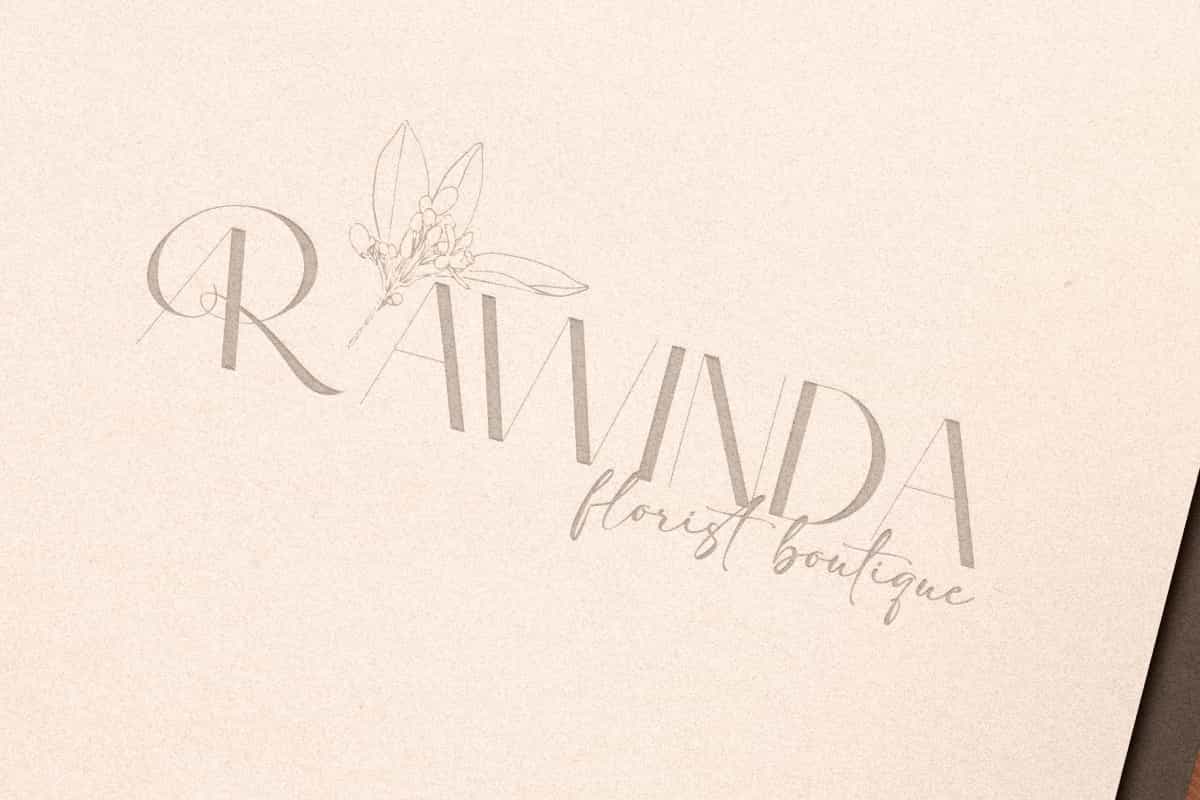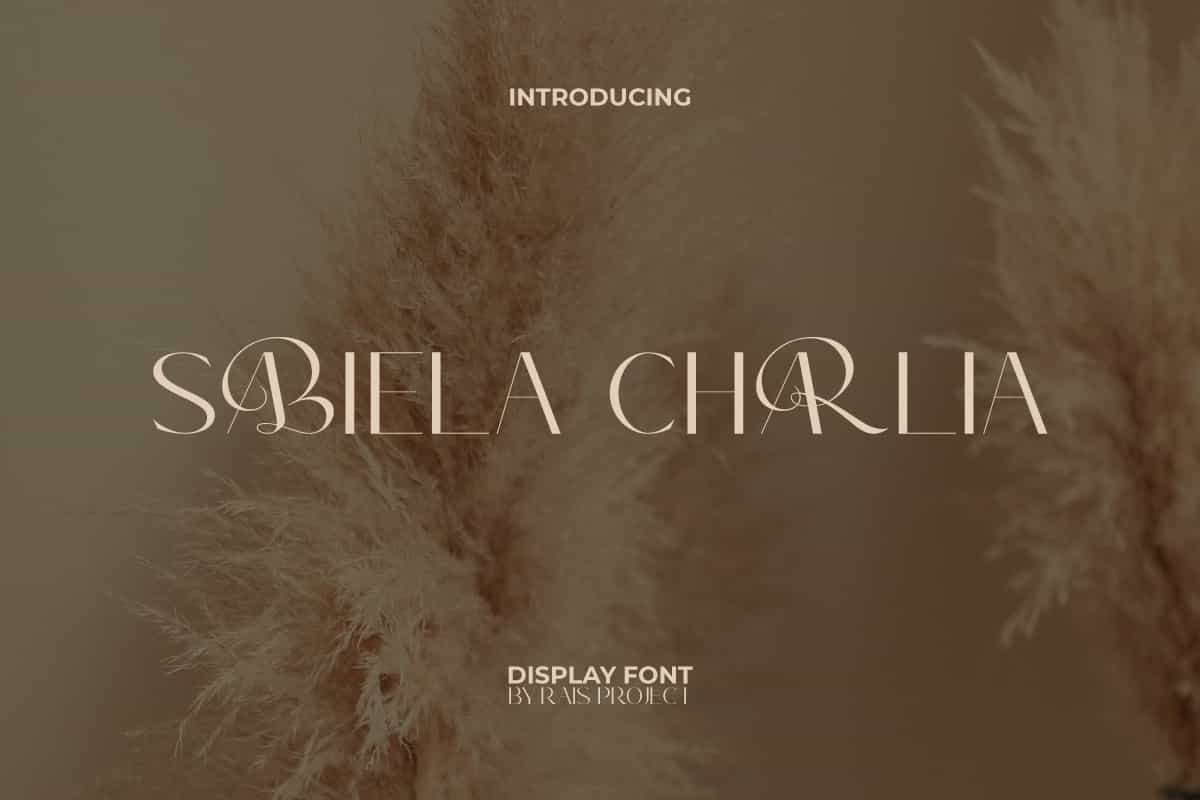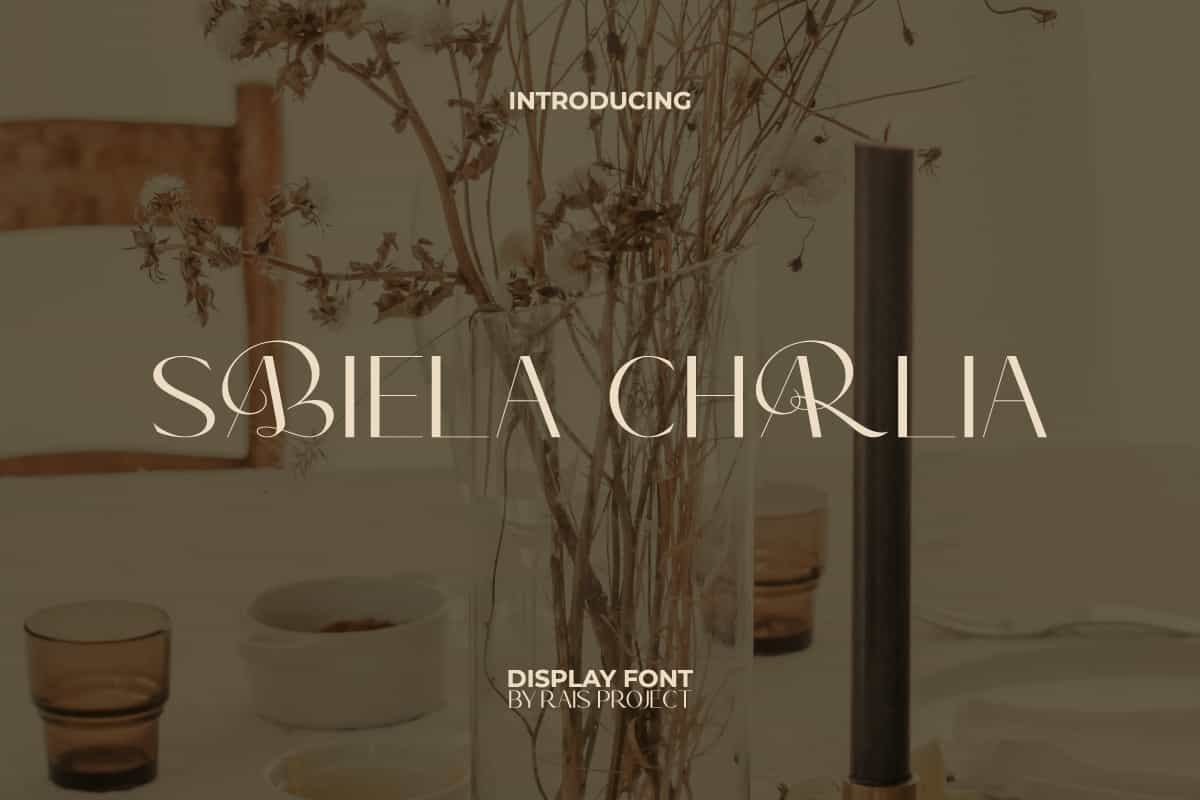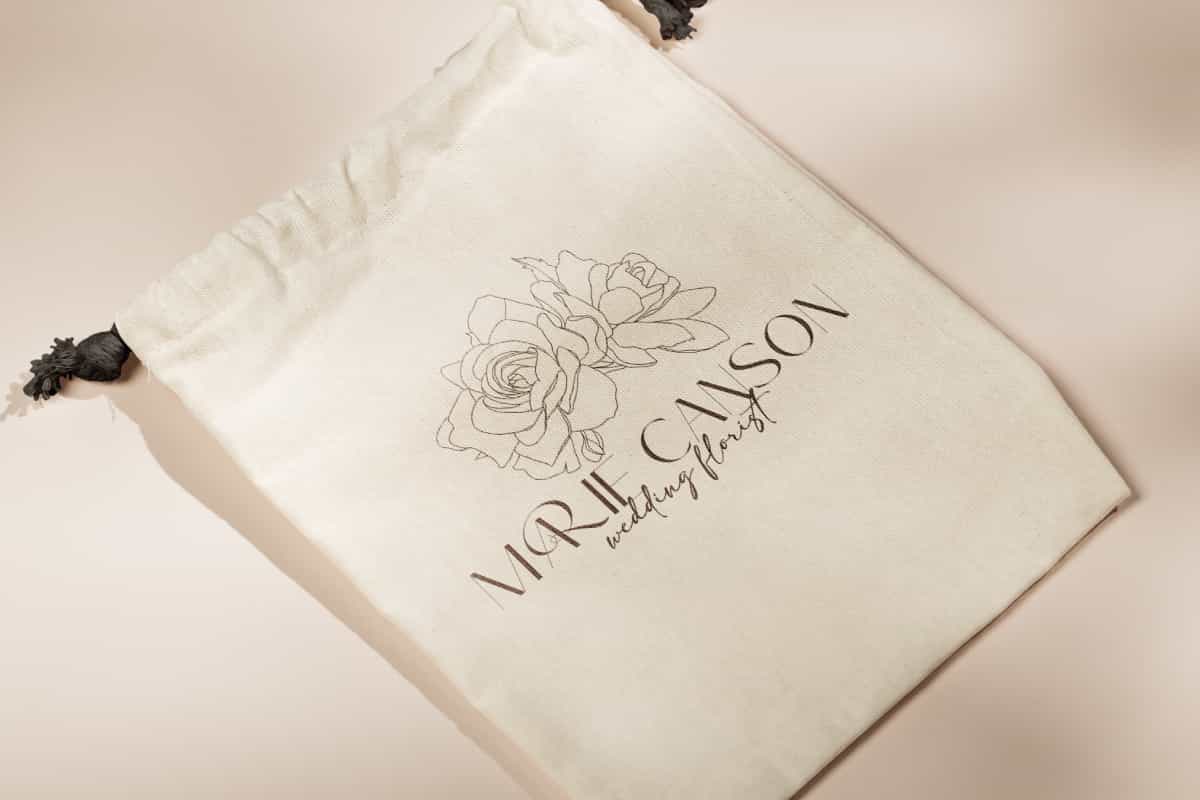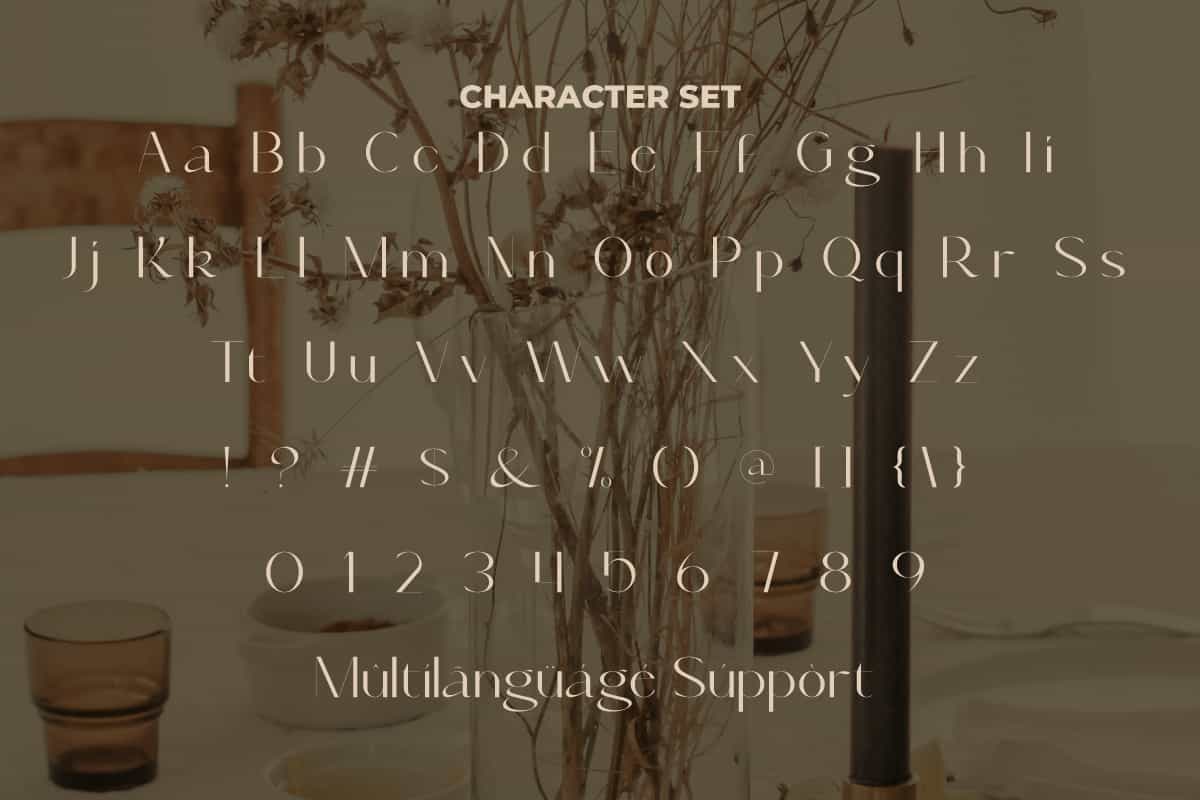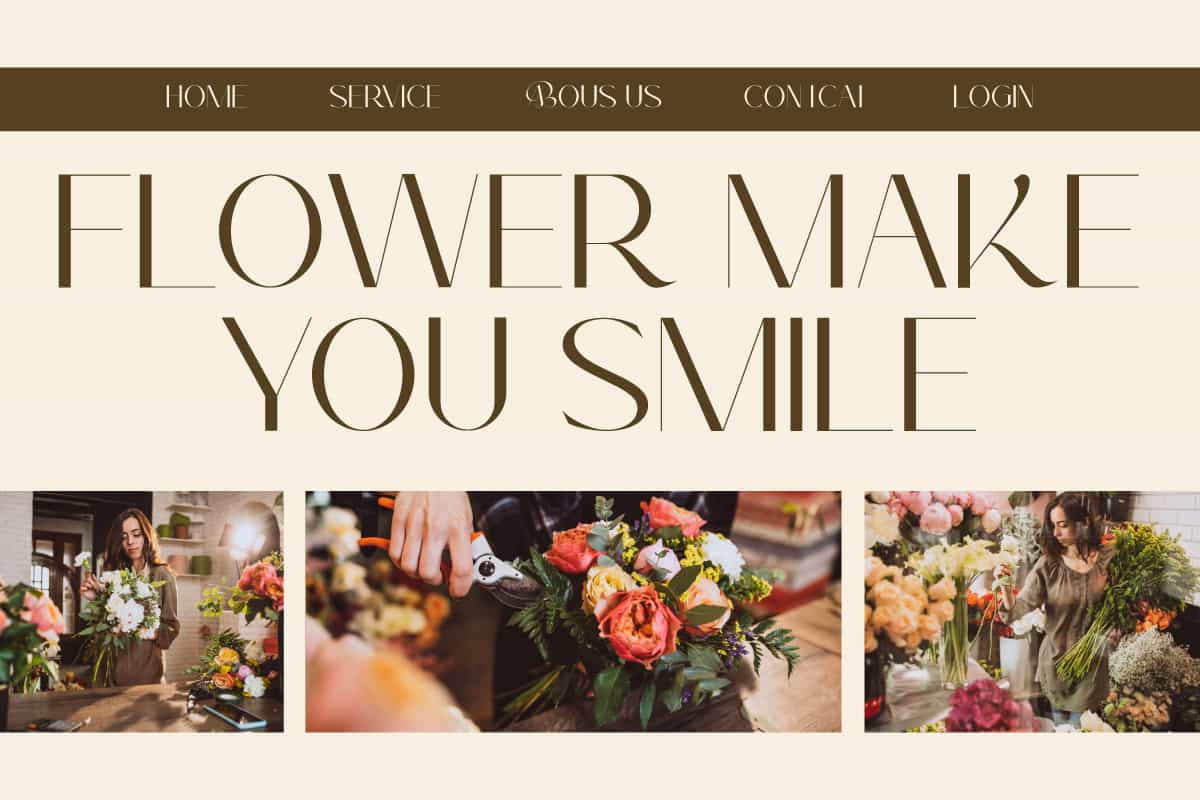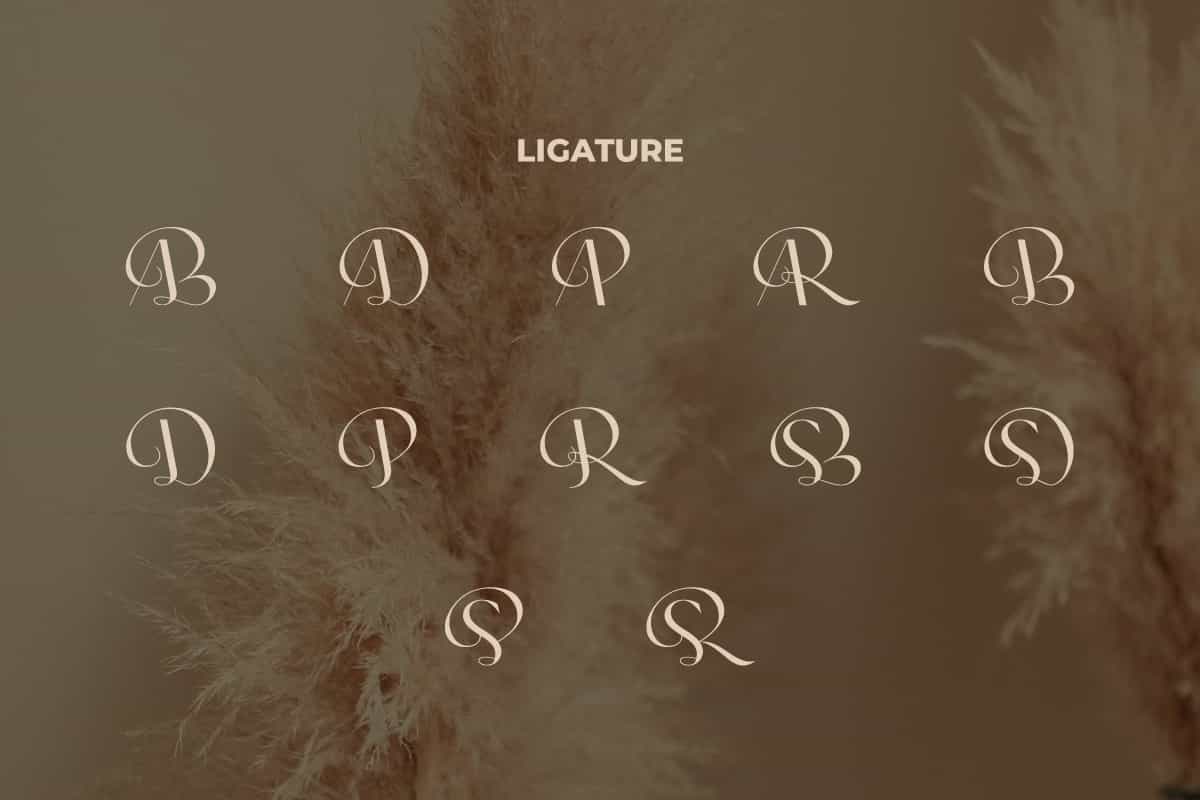
Sabiela Charlia Font
Sabiela Charlia Font is an aesthetic sans serif display font. Try add this font to make your design even more stunning!
Sabiela Charlia Font is a lovely sans serif display font, created by RaisProject. It will look good on invitation, stationery, poster, custom design, product packaging, quotes, signage, brand image, advertisement, label, marketing material, website page, and more! You can see the demo font below, input any word you want so you can see what it looks like:
Sabiela Charlia Font includes a full set of ALL CAPS for Uppercase and Lowercase Letters, Numerals, and large range of Punctuation. This beautiful font also contain Ligature character that will be suitable for various industries, such as fashion, jewelry, cafe, event or wedding organizer, photography, printing, publishing, etc. What you get: